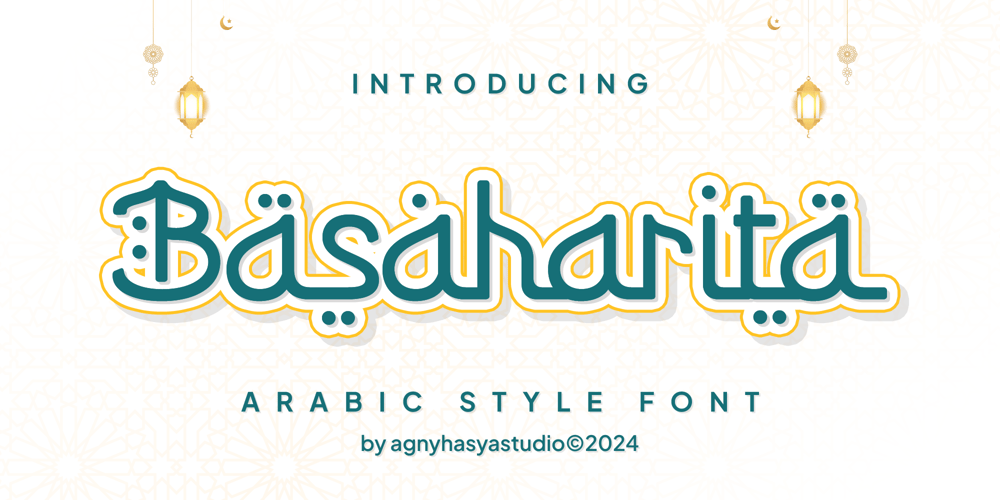
Basaharita Font Family was designed by Firman Maulana and published by Agny Hasya Studio. Basaharita contains 1 styles and family package options. Proudly Present Basaharita Is a Stunning Arabic-Style Display Typeface. Ideal for Ramadan Events and Other Islamic Event Design Projects.This Typeface Is Monoline Style and Connected With Each Other Characters. It Comes With Unique Alternates and Ligatures, Allowing You to Experiment With Character Styles, Resulting in Visually Interesting and Cool Typography.It Also Supports Multilingual Characters, Making It Perfect for Use in Various Languages.It’s Perfect for Your Design Projects Such as Logos, Advertising, Branding, Posters, Banners, Product Designs, Art Quotes, Special Events, Product Packaging, and More.Get it Now & Start Creating and Designing With BasaharitaThank You!